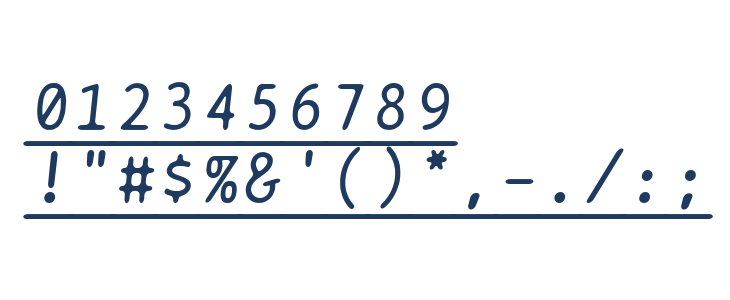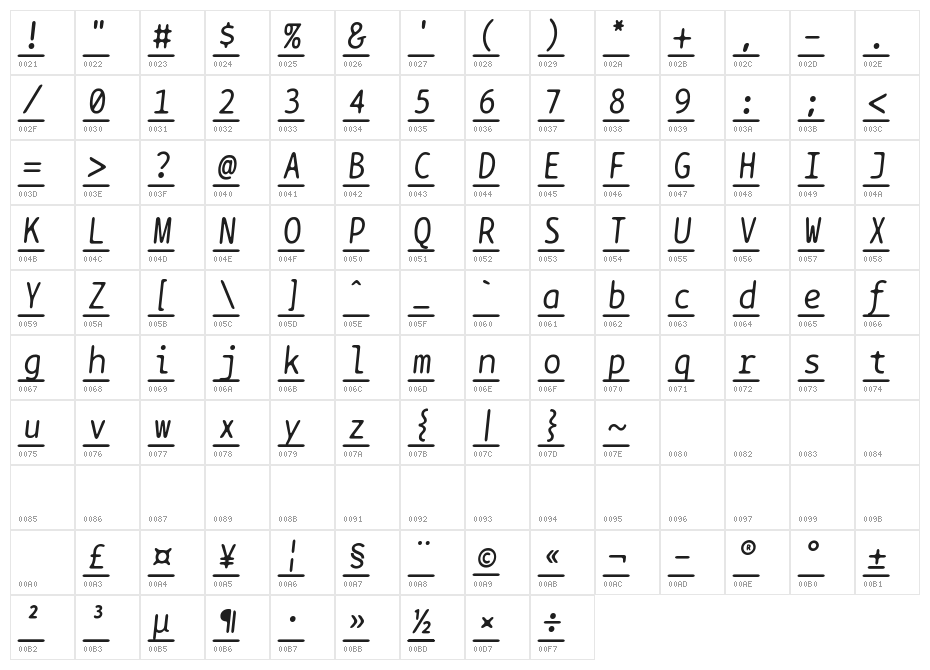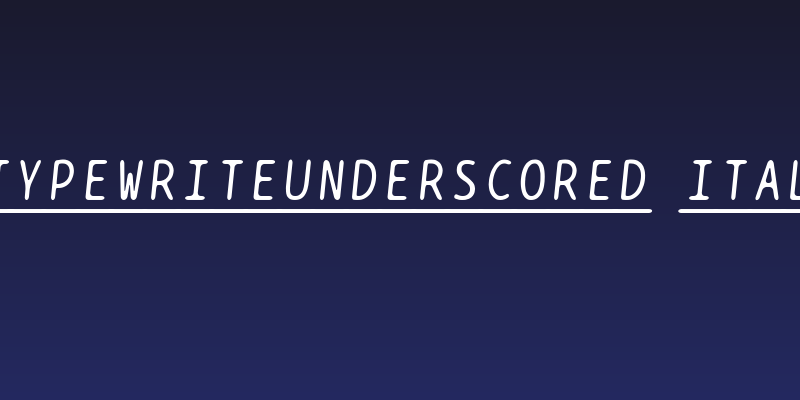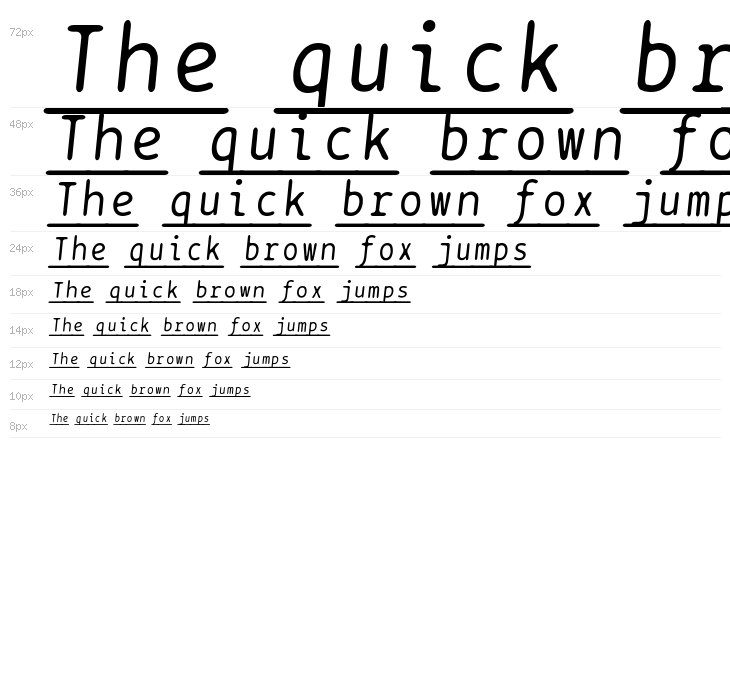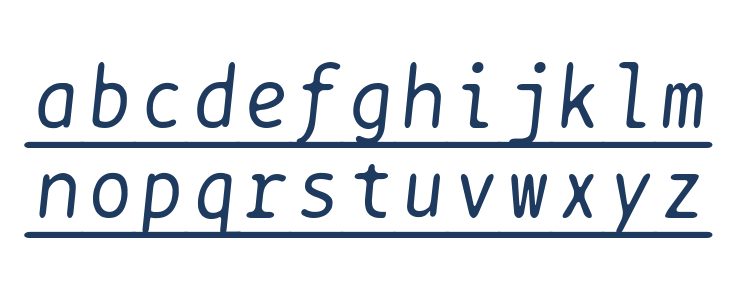
BPtypewriteUnderscored Italic Font
BPtypewriteUnderscored Italic Description
This font exudes a vintage typewriter aesthetic with a modern twist. Each character is underscored, adding a unique and distinctive touch that sets it apart from traditional typewriter fonts. The italic style gives it a dynamic and fluid appearance, while maintaining the structured and mechanical feel of classic typewriter text. The characters are evenly spaced, ensuring readability and clarity. The font includes a full set of uppercase and lowercase letters, numbers, and a variety of special characters, making it versatile for various applications. Its clean lines and consistent stroke width contribute to its legibility, making it suitable for both digital and print media.
| Proposed Projects | Ideal for retro-themed designs, typewriter-inspired projects, creative writing, and branding materials that require a nostalgic yet modern feel. |